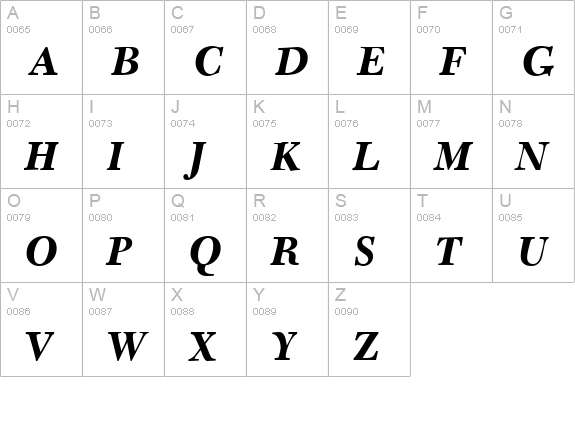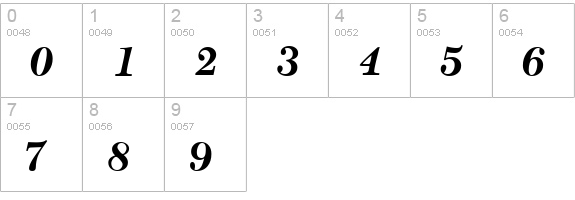
C651-Roman-BoldItalic Font Details
C651-Roman-BoldItalic font is a bold and stylish typeface that exudes elegance and sophistication. With its strong and slanted letterforms, this font is perfect for creating eye-catching headlines and titles. The unique italicized design adds a touch of flair to any project, making it stand out from the rest. What's even better is that C651-Roman-BoldItalic font is completely free to download at FontsMarket.com. Whether you're working on a personal project or a professional design, this font is a versatile choice that will elevate your work to the next level. Don't miss out on the opportunity to add this stunning typeface to your font collection today!